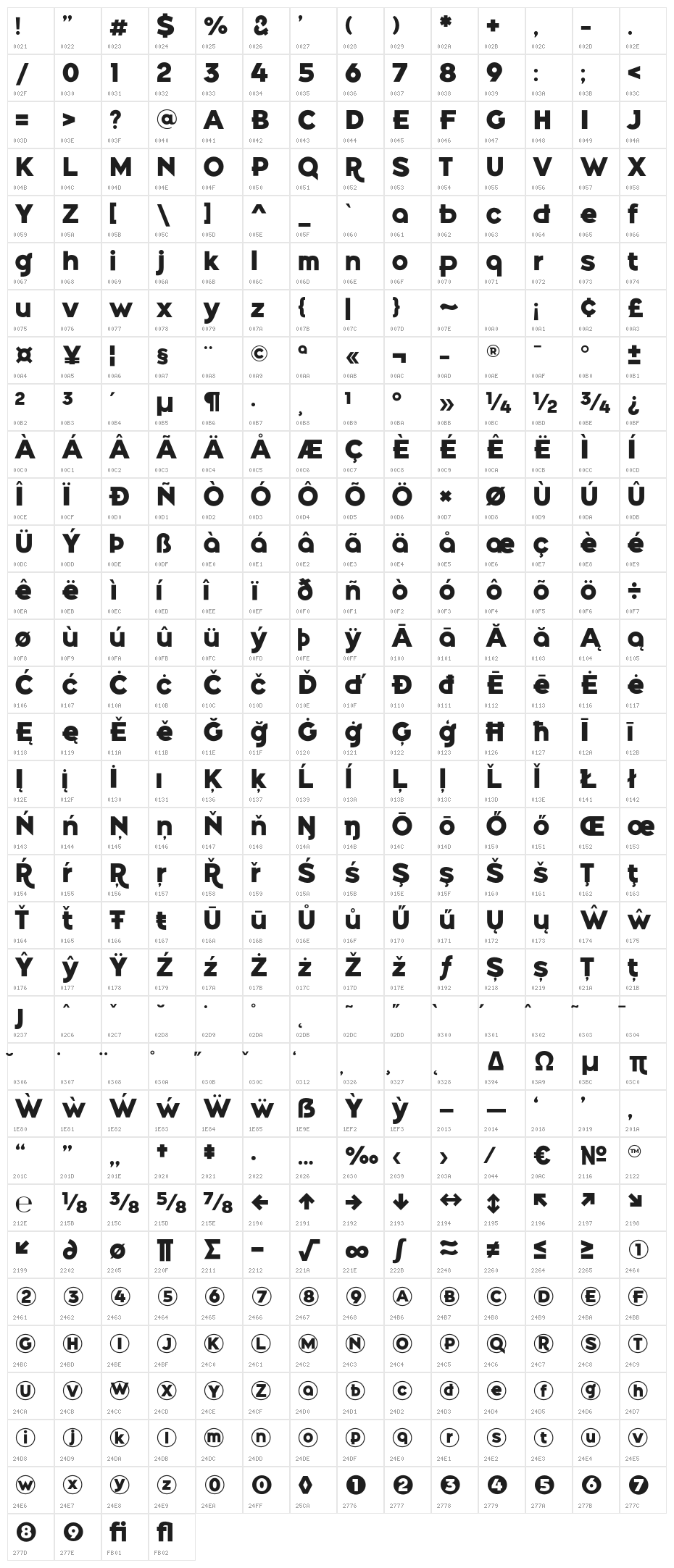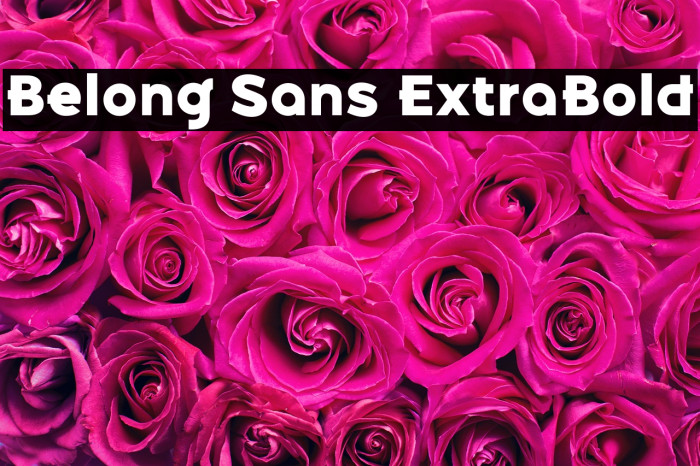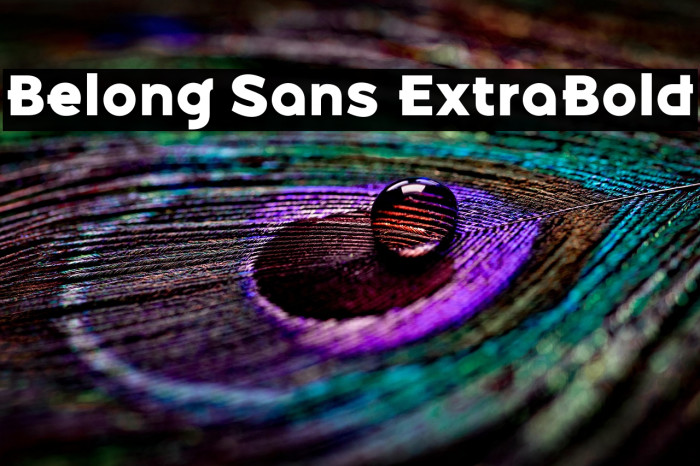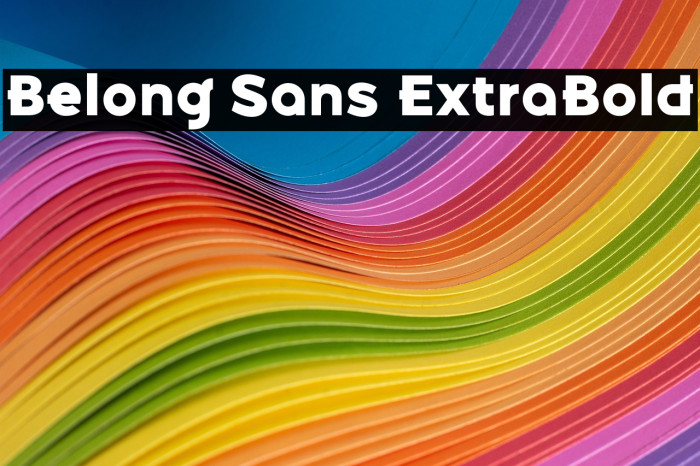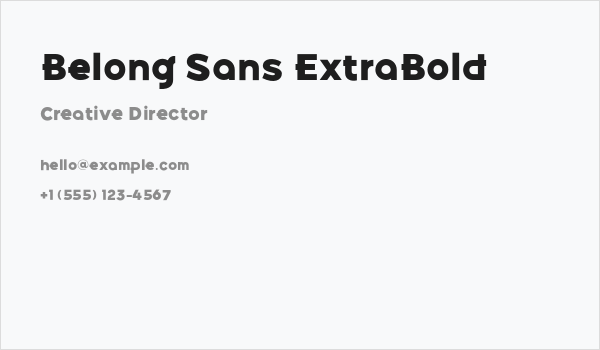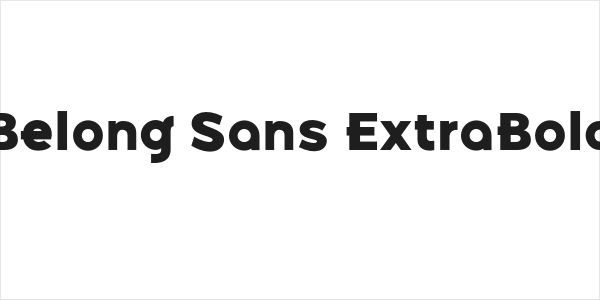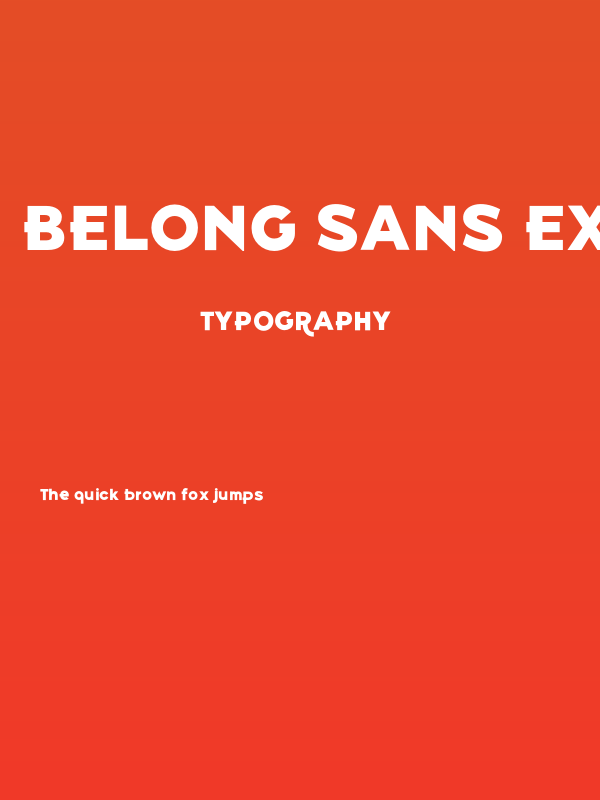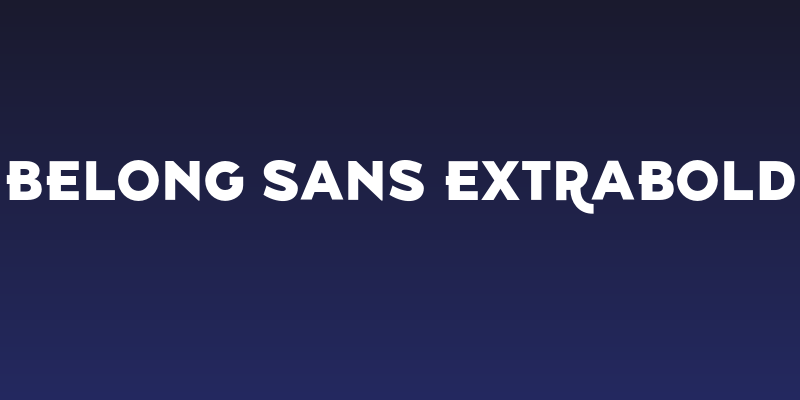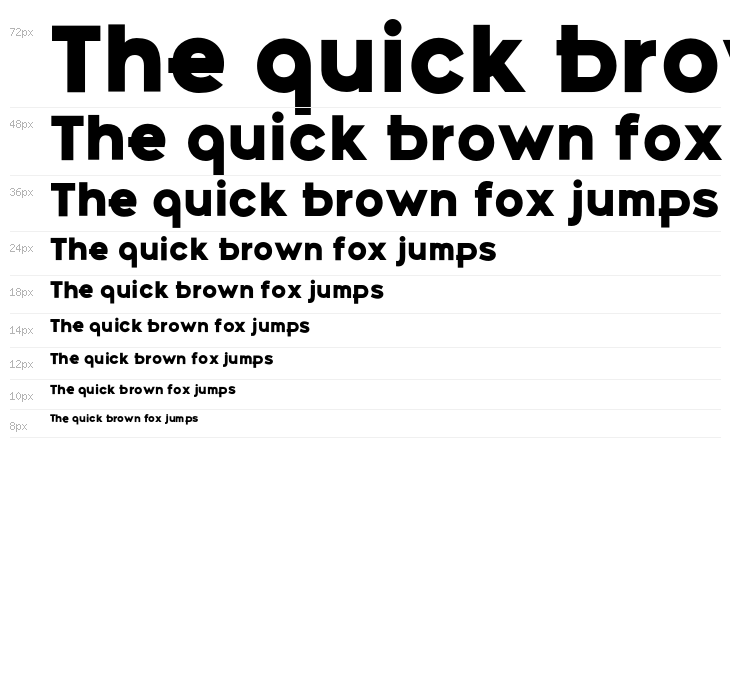
Belong Sans ExtraBold Font
Belong Sans ExtraBold Description
This typeface features a bold and assertive design with clean, geometric lines and a strong presence. The characters are uniformly thick, providing a sense of stability and modernity. The uppercase letters are particularly striking, with a consistent height and width that create a harmonious appearance. The lowercase letters maintain the same boldness, ensuring readability and impact. The numerals are clear and robust, matching the overall style of the alphabet. Special characters are designed with the same attention to detail, making them suitable for various applications. This font's boldness and clarity make it ideal for attention-grabbing headlines and branding materials.